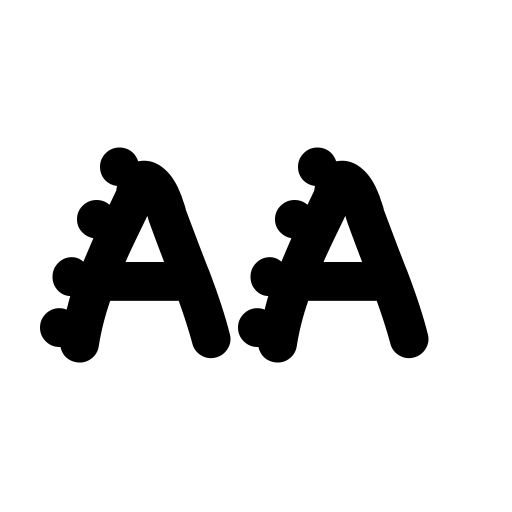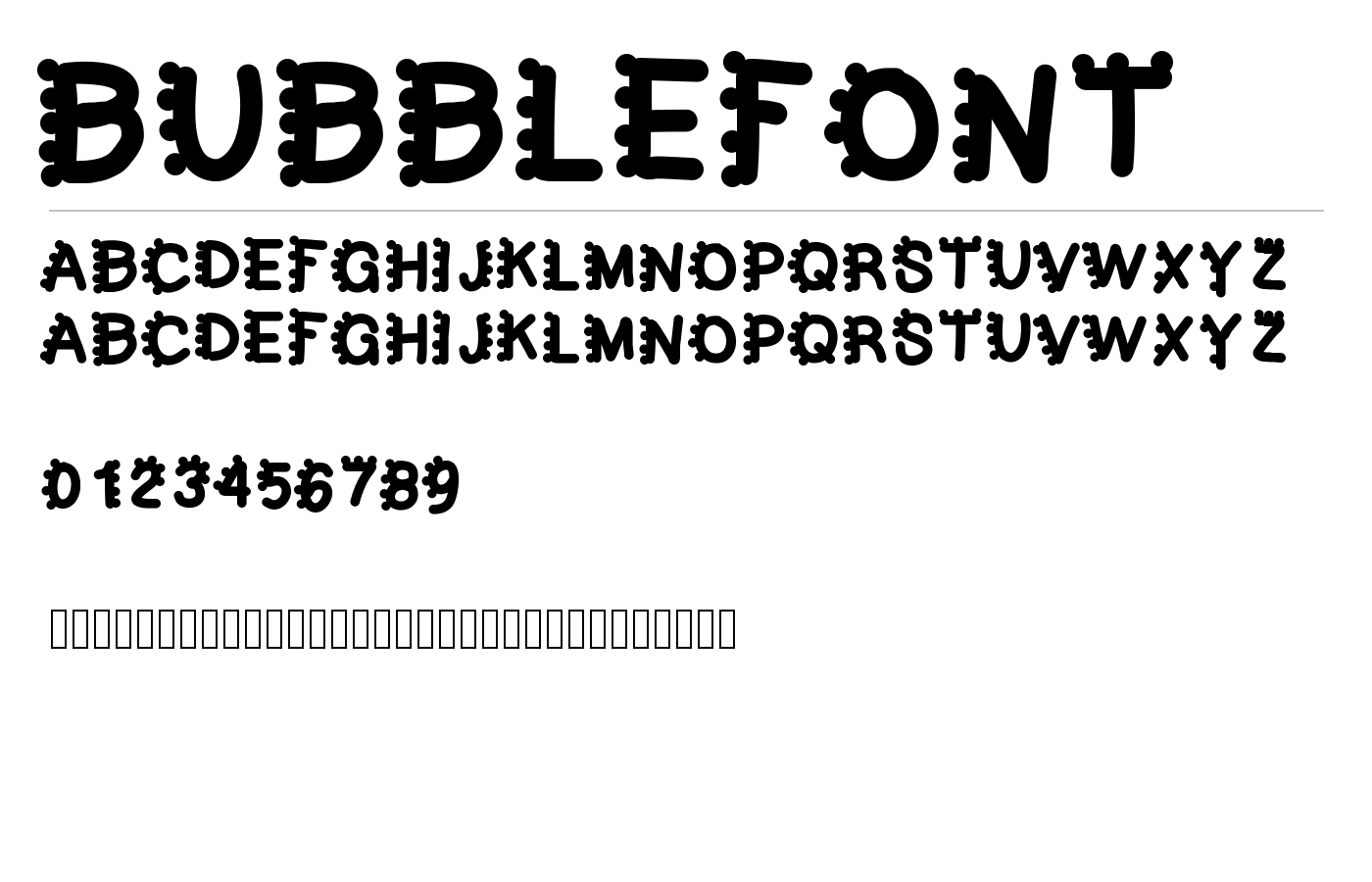
Bubblefont is a playful, bold sans serif typeface characterized by its rounded, bubbly strokes and quirky dot embellishments along the edges. Its heavy weight and casual, friendly shapes give it an informal, fun vibe perfect for children’s materials, party invitations, or any design needing a cheerful and whimsical touch. This font works best in large display uses like logos and posters where its unique personality can really shine.